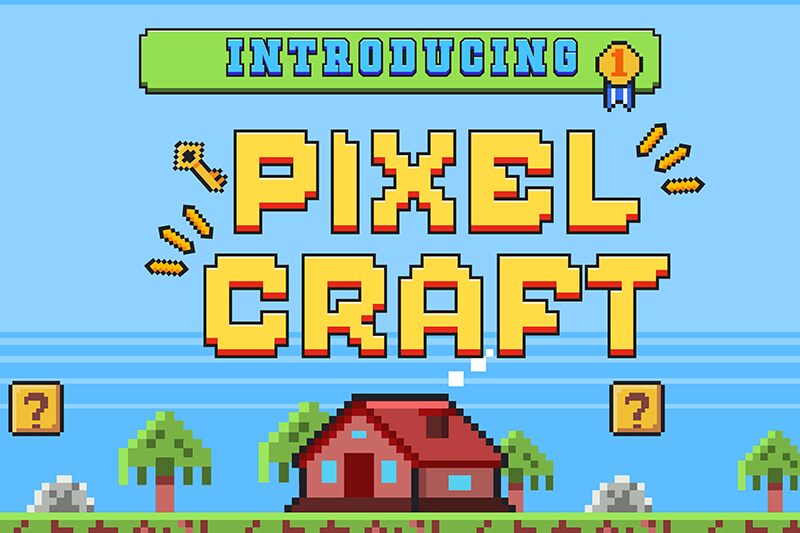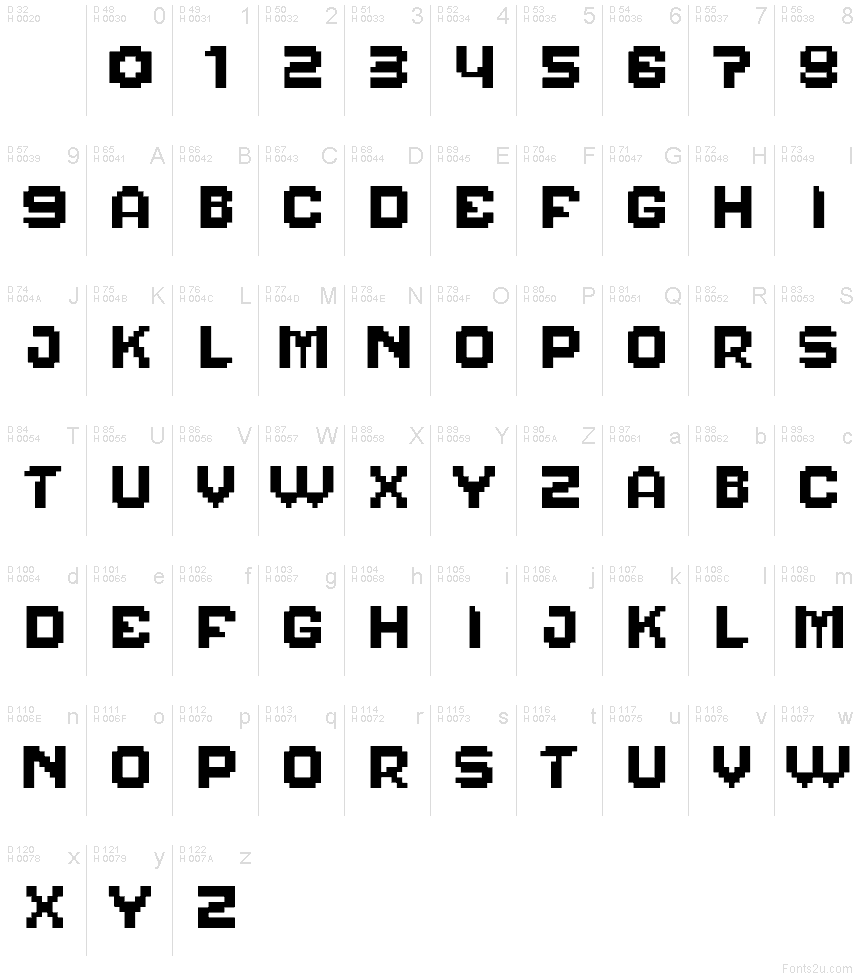
Pixelcraft
Pixelcraft font by Mocha Frappuccino is a bitmap typeface with a blocky design and pixelated edges. The style gives an 8-bit video game influence with a retro aesthetic and digital feel to it. Bold, minimalistic, and geometric in appearance, this free pixel font contains everything you need for your web and print projects.
Use Pixelcraft in project designs related to architecture, album cover art designs, posters, publications of all sorts including magazines and newspapers headlines. Website creation would benefit from this visual element just as much as packaging or T-shirt designs.